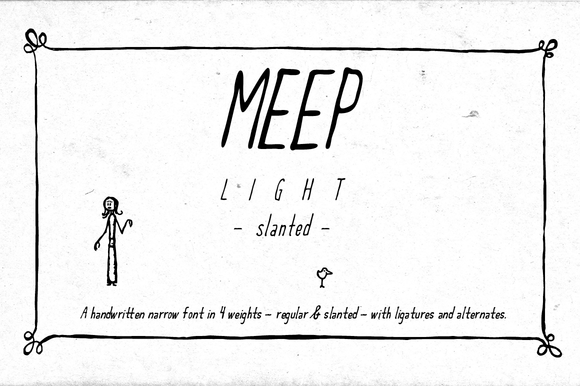
Introducing Meep Light Slanted: A uniquely stylish and expressive sans-serif font family. Its intricate curves and playful angles add a touch of whimsy to any design, captivating the attention of all who encounter it.
Meep Light Slanted is a typeface that exudes playfulness, warmth, and charm. Its light and breezy nature makes it perfect for creating designs that are both eye-catching and approachable. Whether you're crafting whimsical logos, playful invitations, or charming social media graphics, Meep Light Slanted will infuse your creations with a touch of magic.
This font family is a true artist's playground, unleashing a world of creative possibilities. It's perfect for those seeking to add a touch of whimsy to their projects, capture the essence of joy, or simply create designs that stand out from the crowd. With Meep Light Slanted at your fingertips, you'll never run out of inspiration.